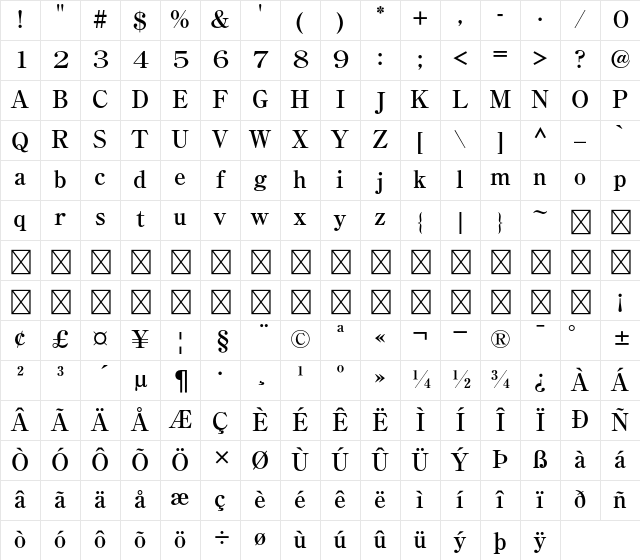
Complete G-OTF Jo Ryumin ProN B-KL glyph index. Displaying only characters natively supported by G-OTF Jo Ryumin ProN B-KL font.
G-OTF Jo Ryumin ProN is a composed and adaptable typeface that performs quietly and consistently across a wide range of design contexts.